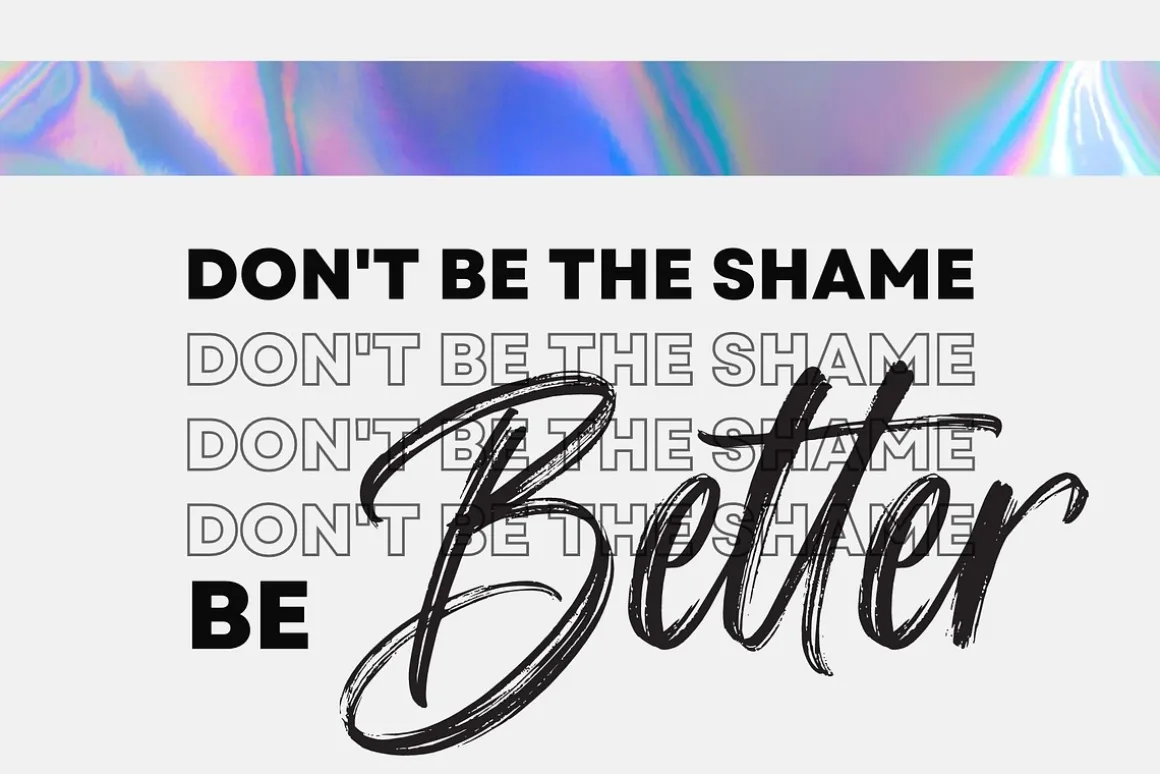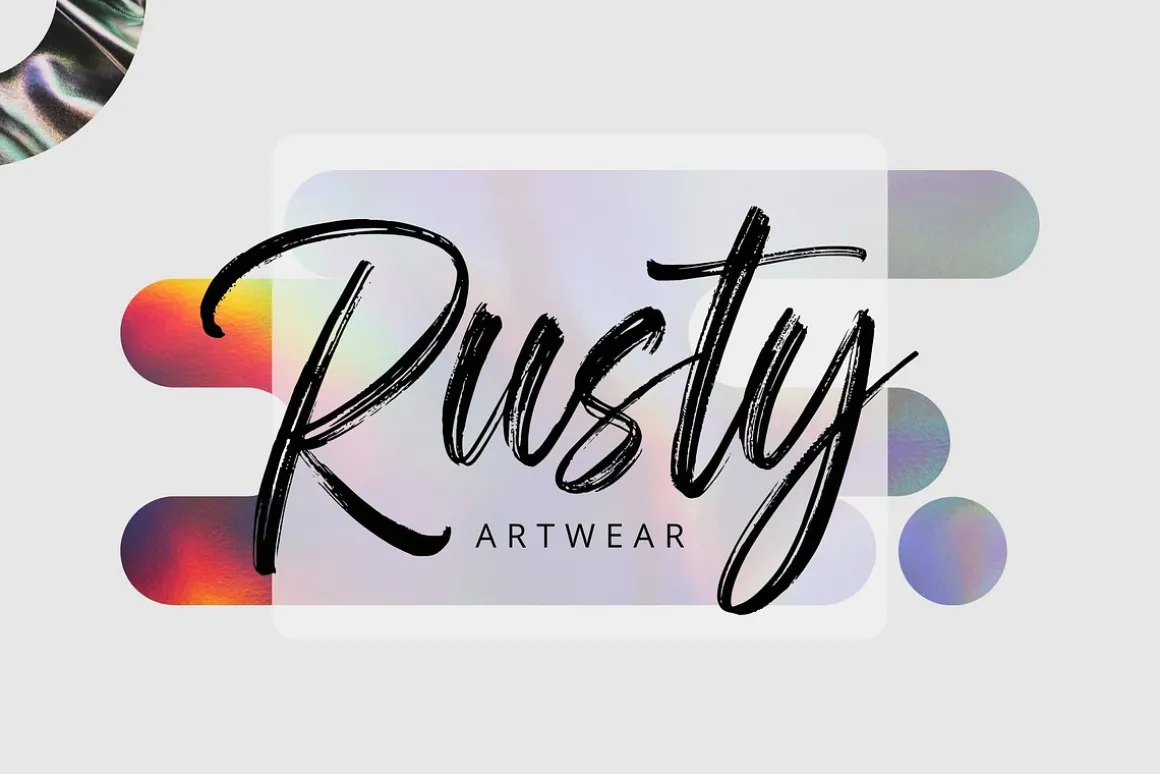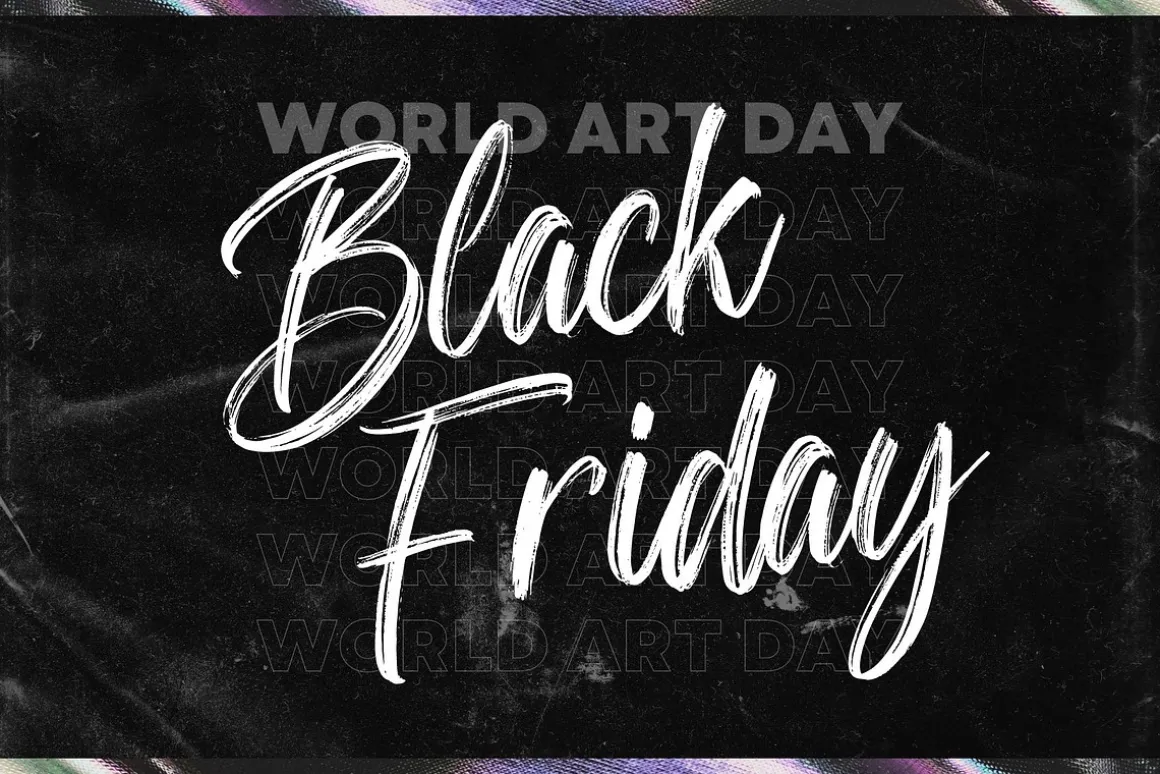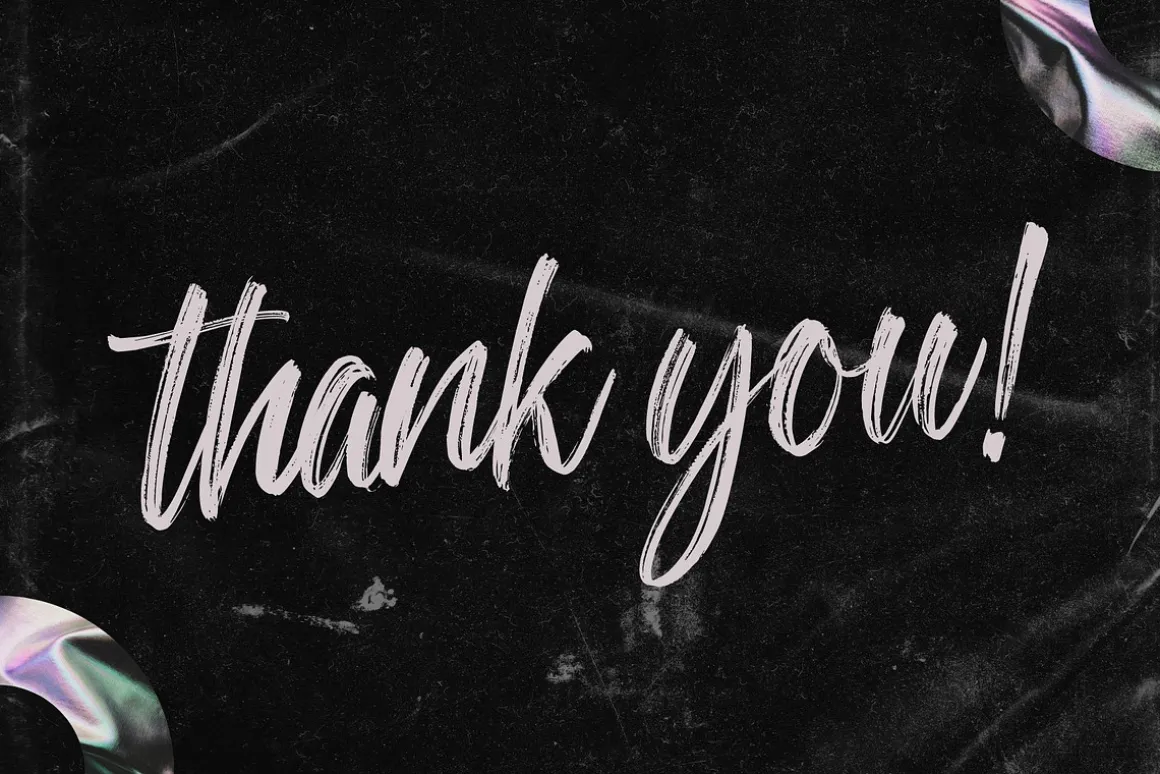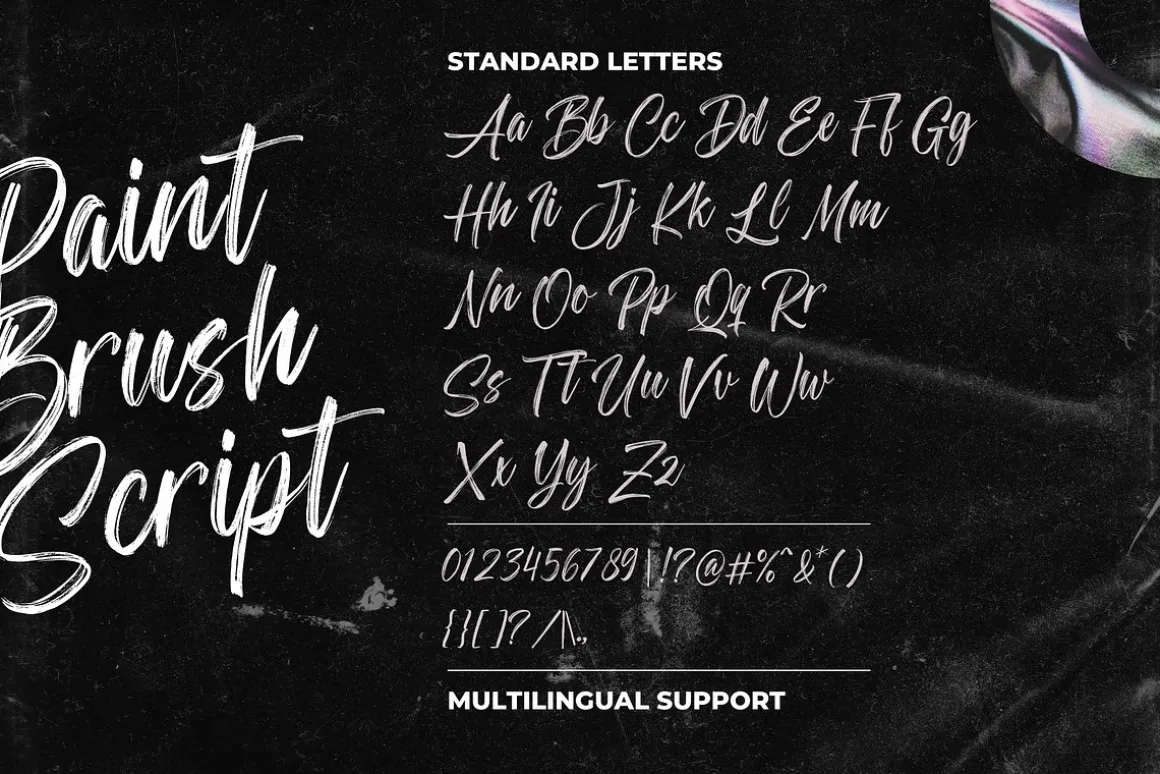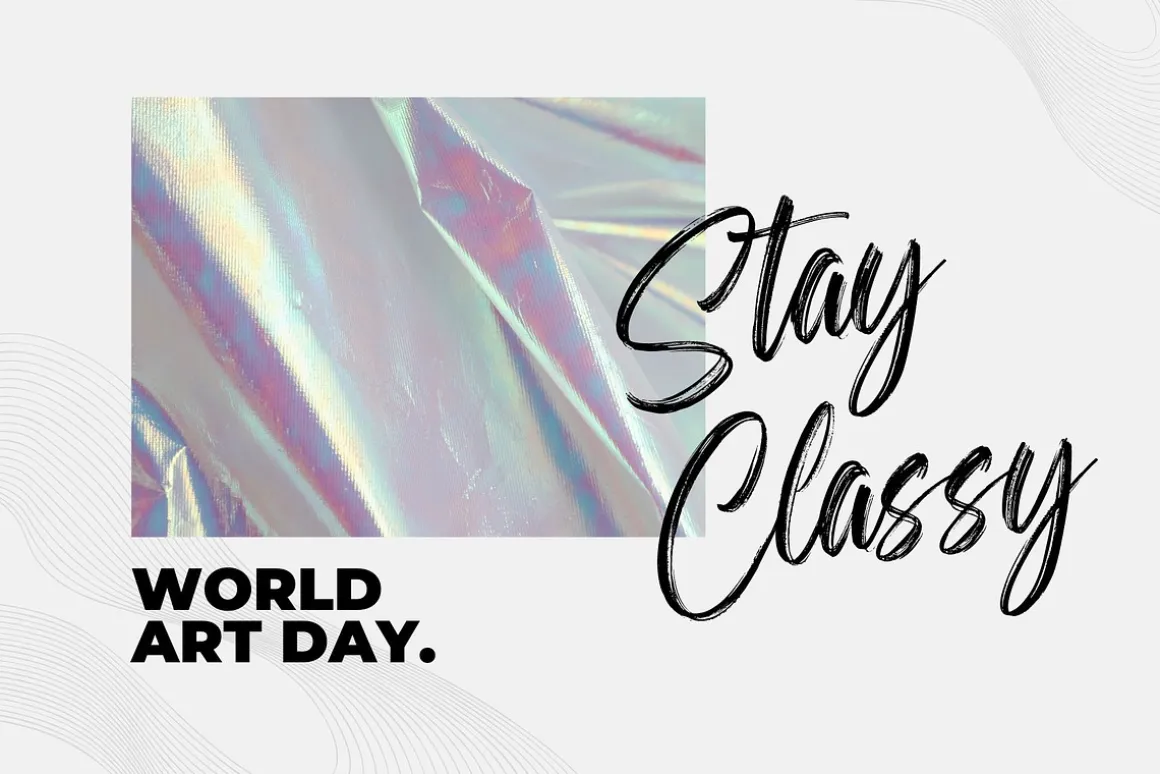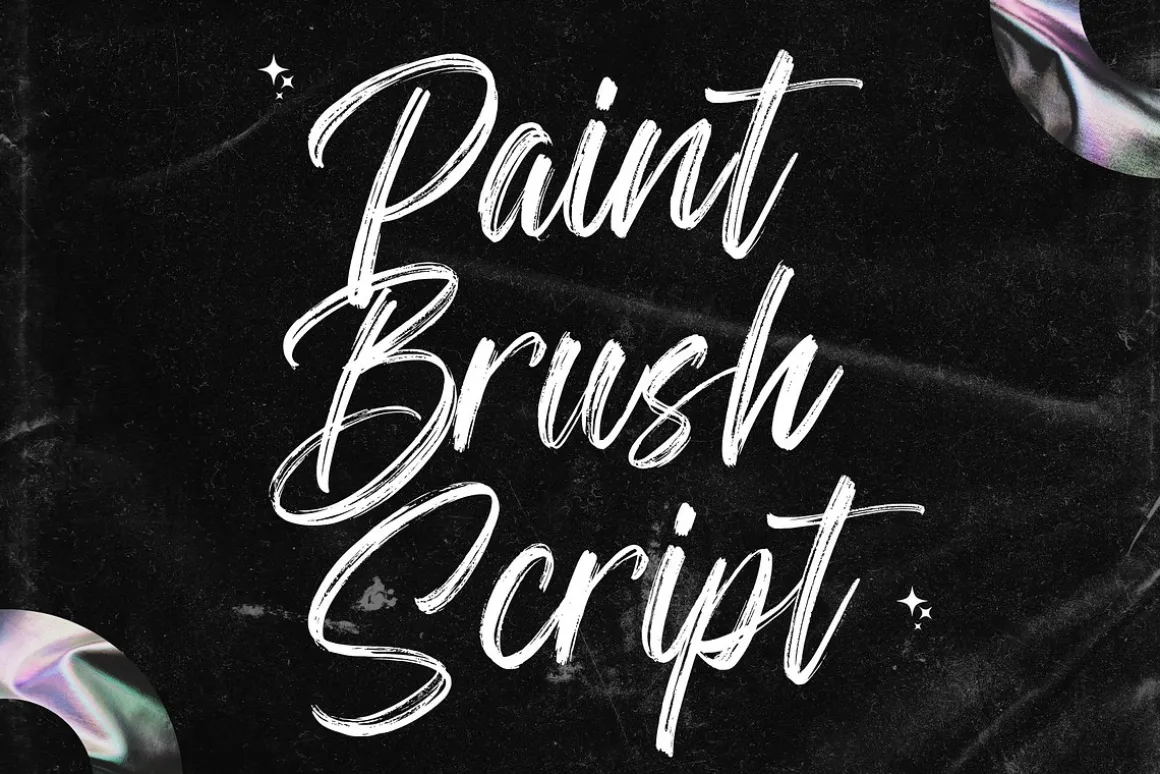
Paint Brush Script is a Natural Brush handwriting modern calligraphy font.
full set of lowercase and uppercase letters, numerals and punctuation, multilingual symbols, lowercase.